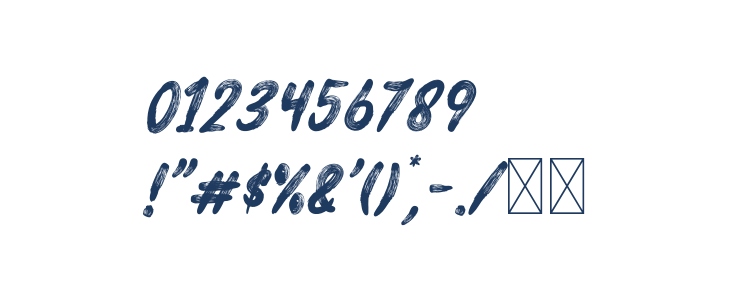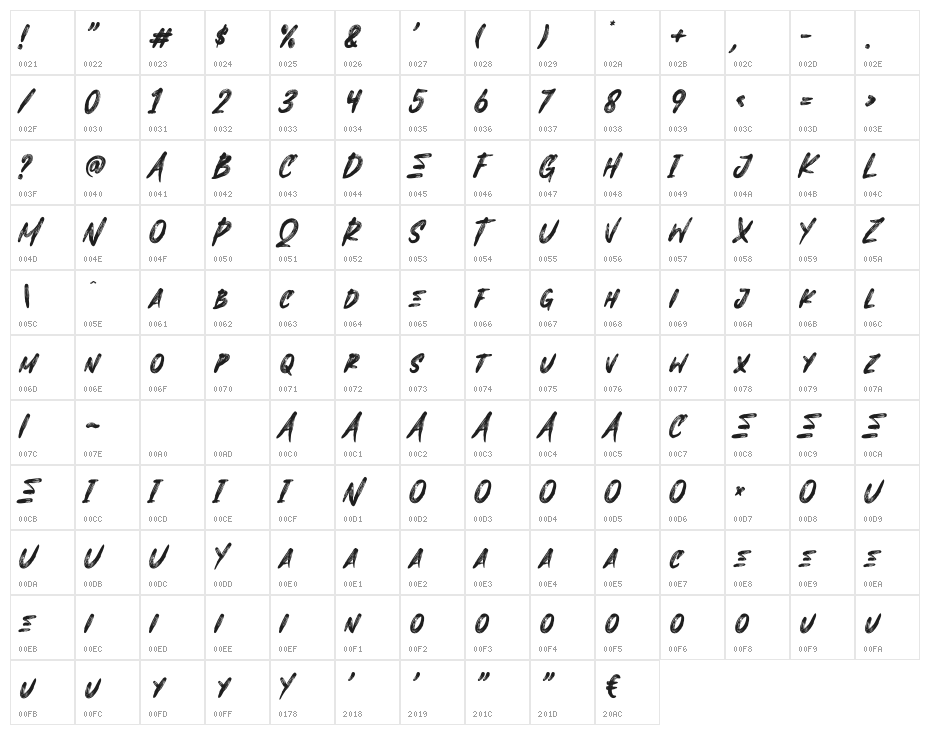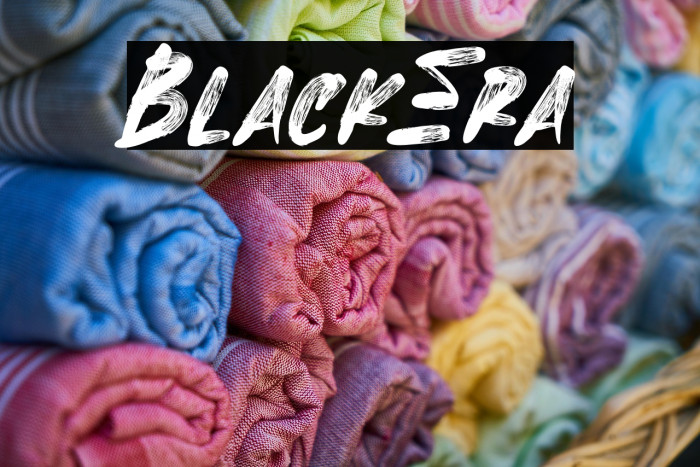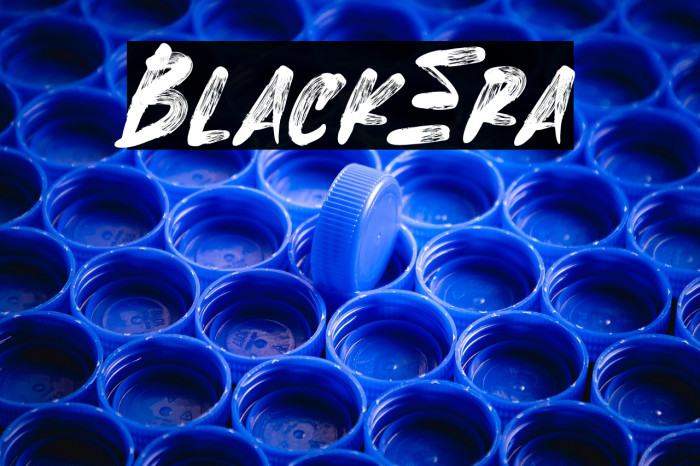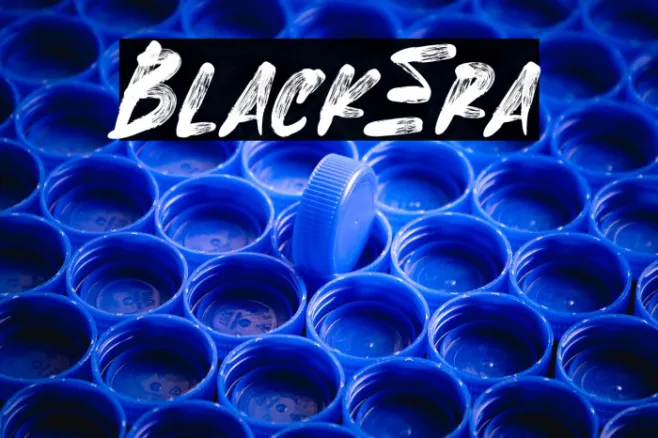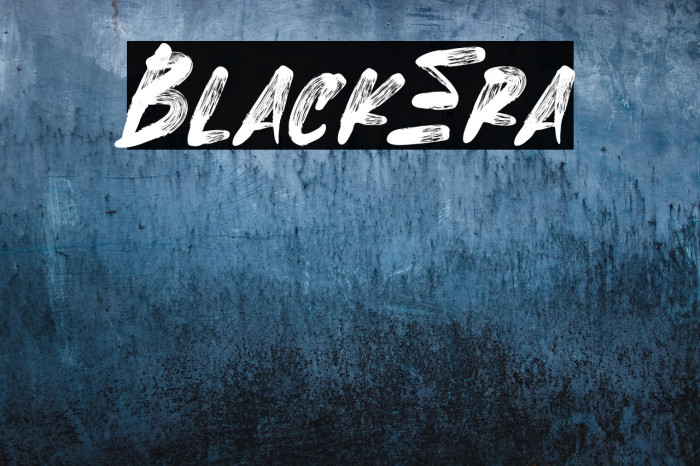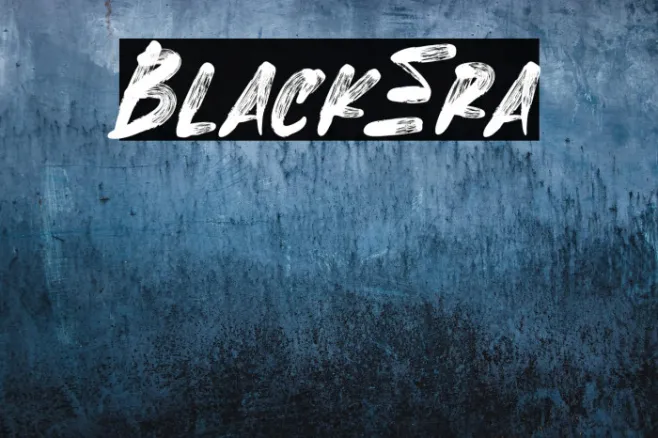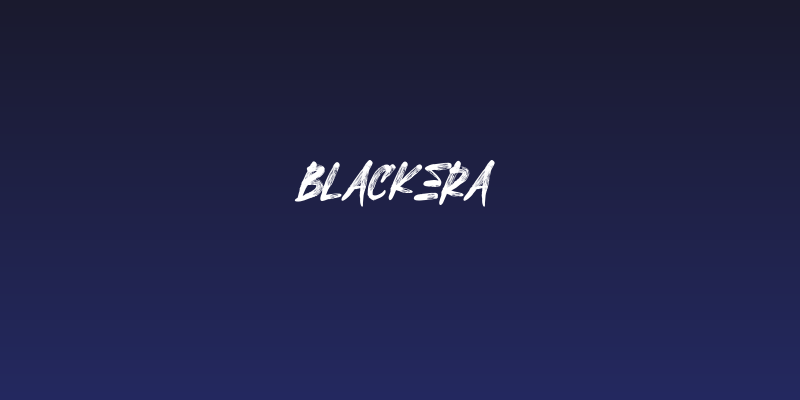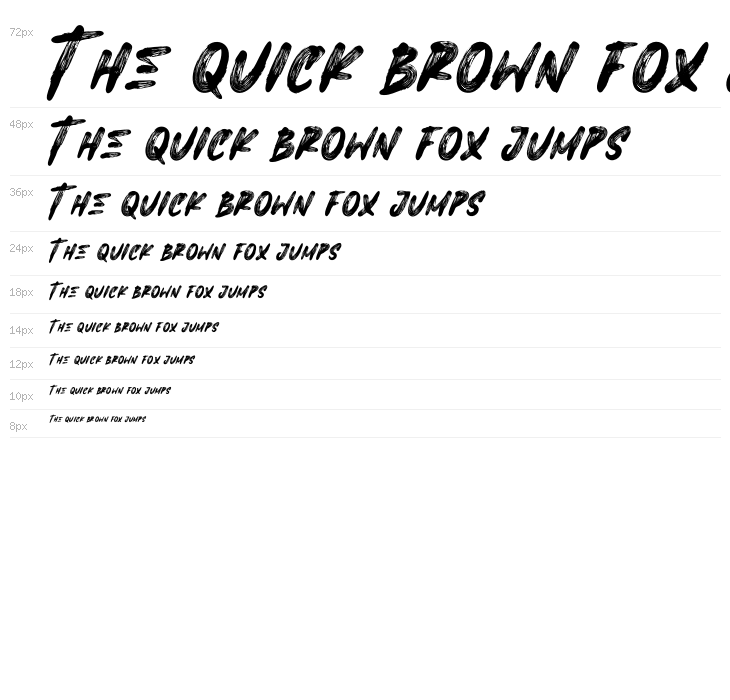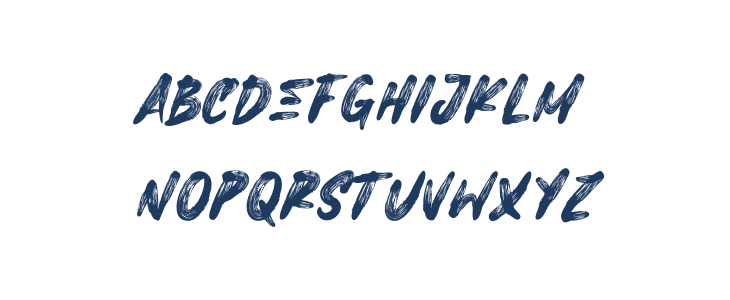
BlackEra Font
BlackEra Description
This font features a bold, expressive style with a brush-like texture that gives it a dynamic and energetic appearance. The strokes are uneven and varied, creating a sense of movement and spontaneity. Each character is distinct, with a hand-painted look that adds a personal touch. The uppercase and lowercase letters maintain a consistent style, while the numbers and special characters complement the overall aesthetic. This font is ideal for projects that require a strong visual impact and a creative flair.
| Proposed Projects | Perfect for posters, album covers, branding, and artistic projects that need a bold statement. |